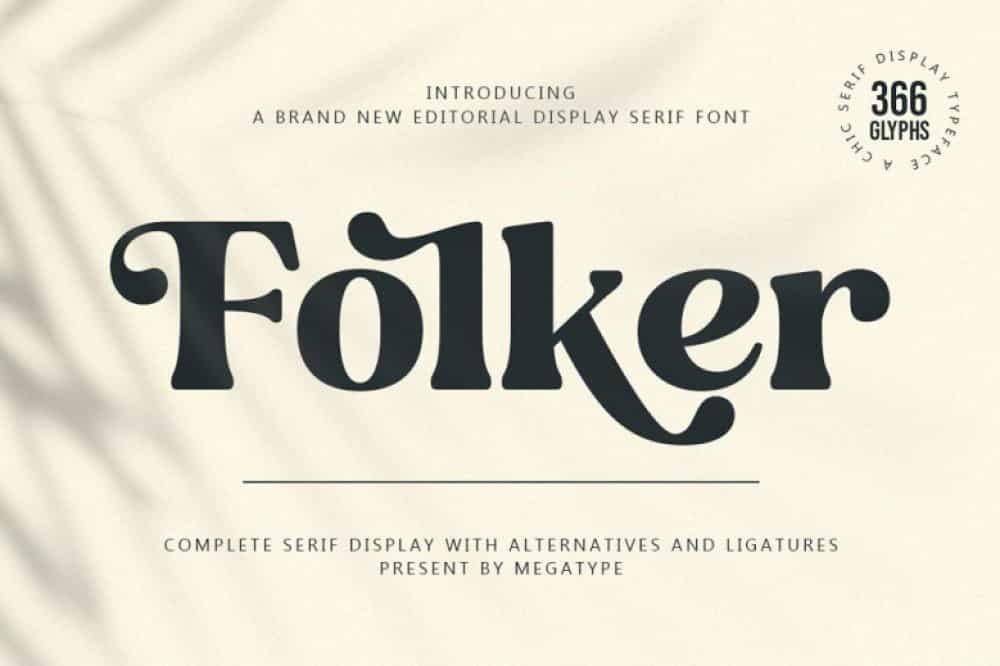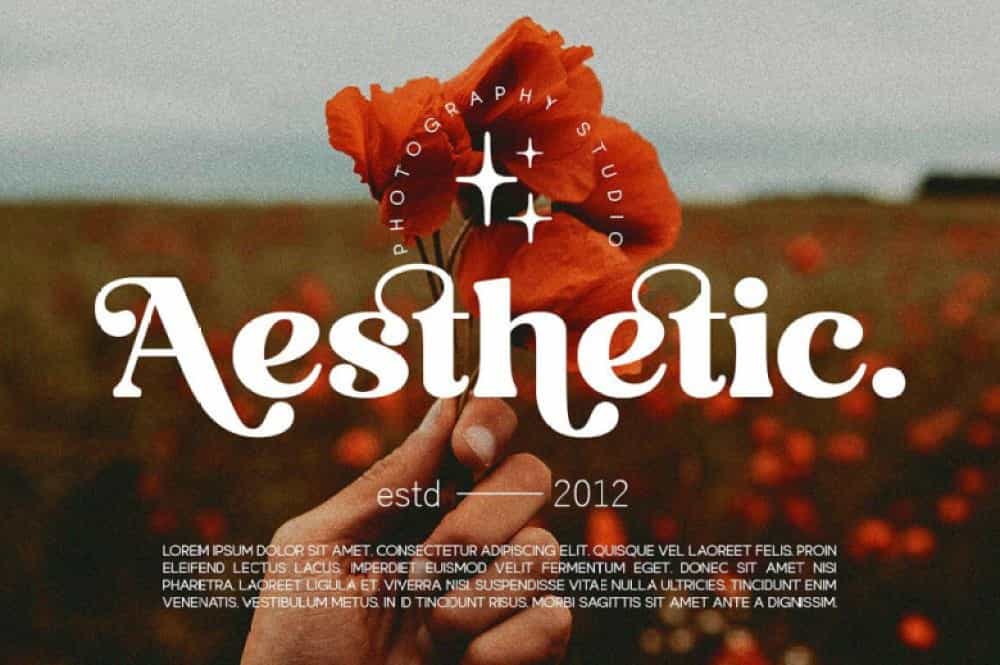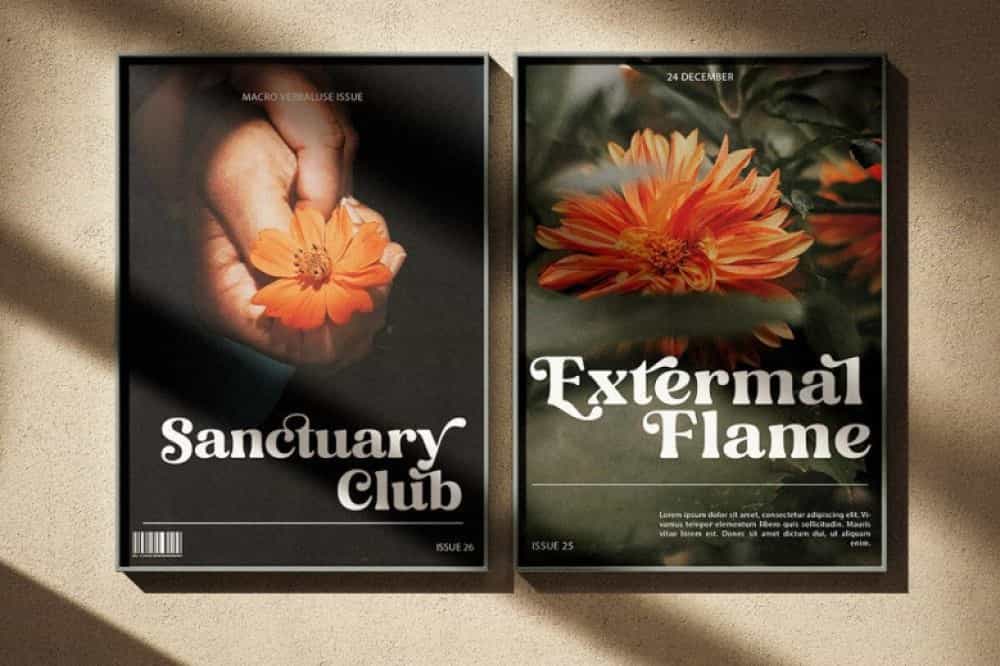
Folker is a fresh editorial display serif font that belongs to the retired professional font category. They are young, energetic, confident, stylish and chic to meet today’s world. It is equally beautiful at display size and, to some extent, readable when it comes to text size. This font also comes with many unique alternatives and binders that will ensure that the design projects coming from this font are outstanding.